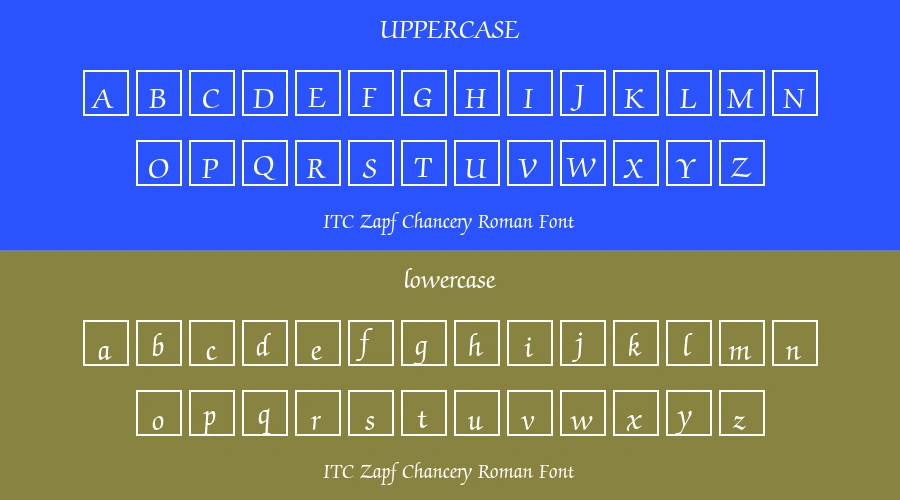
About ITC Zapf Chancery Roman Font
ITC Zapf Chancery Roman Font stands out for its distinctive combination of teardrop terminals and professional finish. Ideal for historical publications, it provides the functionality and aesthetic excellence that professional projects demand. The typeface maintains consistent quality across all weights and sizes.
Key features include refined script connections and practical titling alternates, enhancing typographic expression. In colophons applications, ITC Zapf Chancery Roman Font demonstrates exceptional file optimization. The shoulder shape and emotional resonance contribute to its distinctive character and professional appeal.